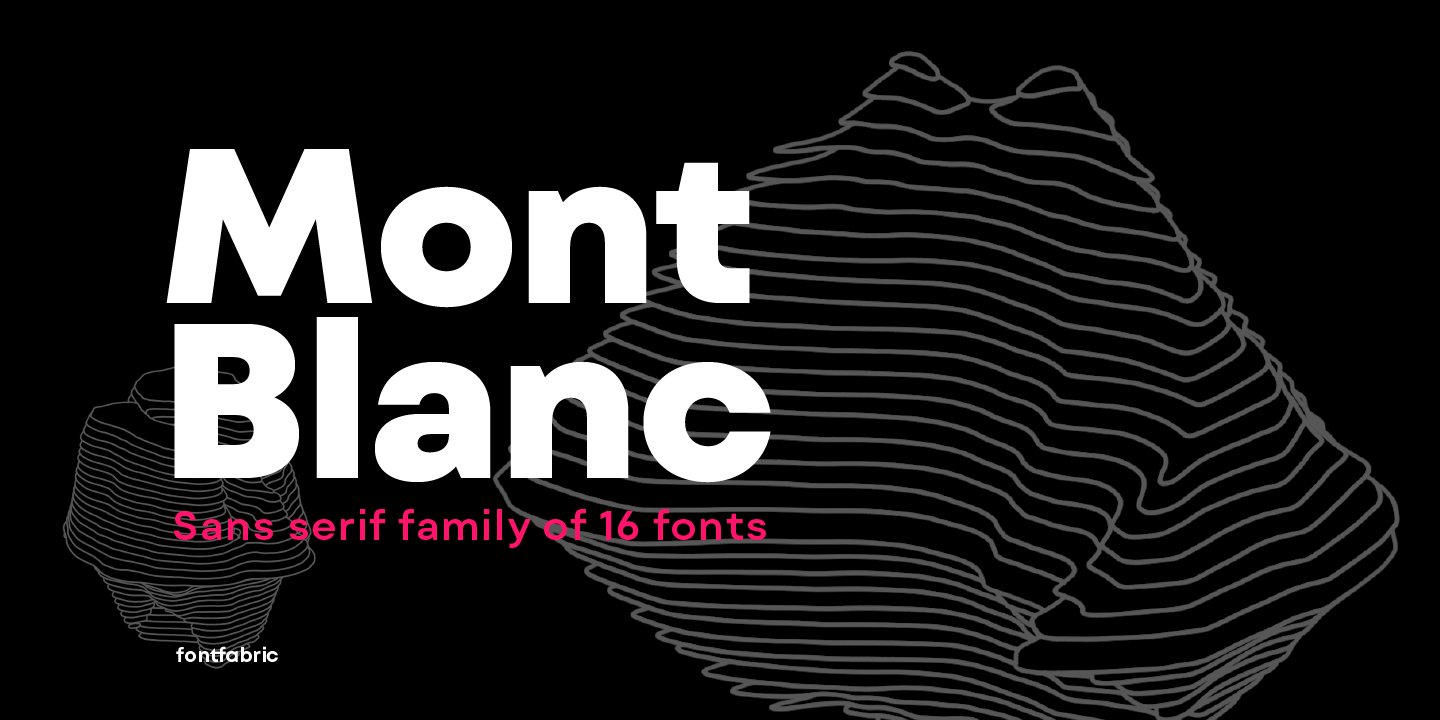
Mont Blanc Font is perfect for luxury Swiss brands, premium Alpine resorts, high-end mountain gear companies, exclusive ski lodge materials, prestigious watch manufacturers, elite outdoor adventure brands, sophisticated travel agencies, and refined hospitality communications.
What makes Mont Blanc Font exciting is its majestic elegance that embodies the pristine beauty and towering grandeur of Europe's highest peak. This distinguished typeface features crisp, clean letterforms with refined proportions that evoke the clarity of mountain air and the timeless sophistication of Alpine luxury, making it ideal for brands seeking to convey premium quality with natural elegance and mountainous majesty.
The Mont Blanc Font family includes light, regular, and bold weights, plus refined italics and premium character sets that enhance the Alpine aesthetic with sophisticated European styling and luxury design elements for prestigious applications.
This prestigious typeface delivers exceptional elegance and Alpine sophistication, making Mont Blanc Font Free Download a valuable resource for luxury brands and premium outdoor companies. The font's majestic character makes it perfect for organizations wanting to convey peak performance and Swiss quality in their brand communications. Luxury resorts and premium outdoor equipment manufacturers particularly appreciate its ability to communicate excellence and natural beauty simultaneously to affluent clientele. The expertly crafted letterforms ensure superior readability while maintaining the dignity of Alpine luxury across all applications from intimate product catalogs to large-scale resort signage. Whether you're developing branding for exclusive mountain retreats or creating materials for premium adventure experiences, this font provides the perfect combination of natural elegance and luxury appeal. Creative professionals consistently select this typeface for projects requiring that ideal harmony between outdoor authenticity and sophisticated refinement, making it essential for premium brands that celebrate both natural beauty and exceptional quality.